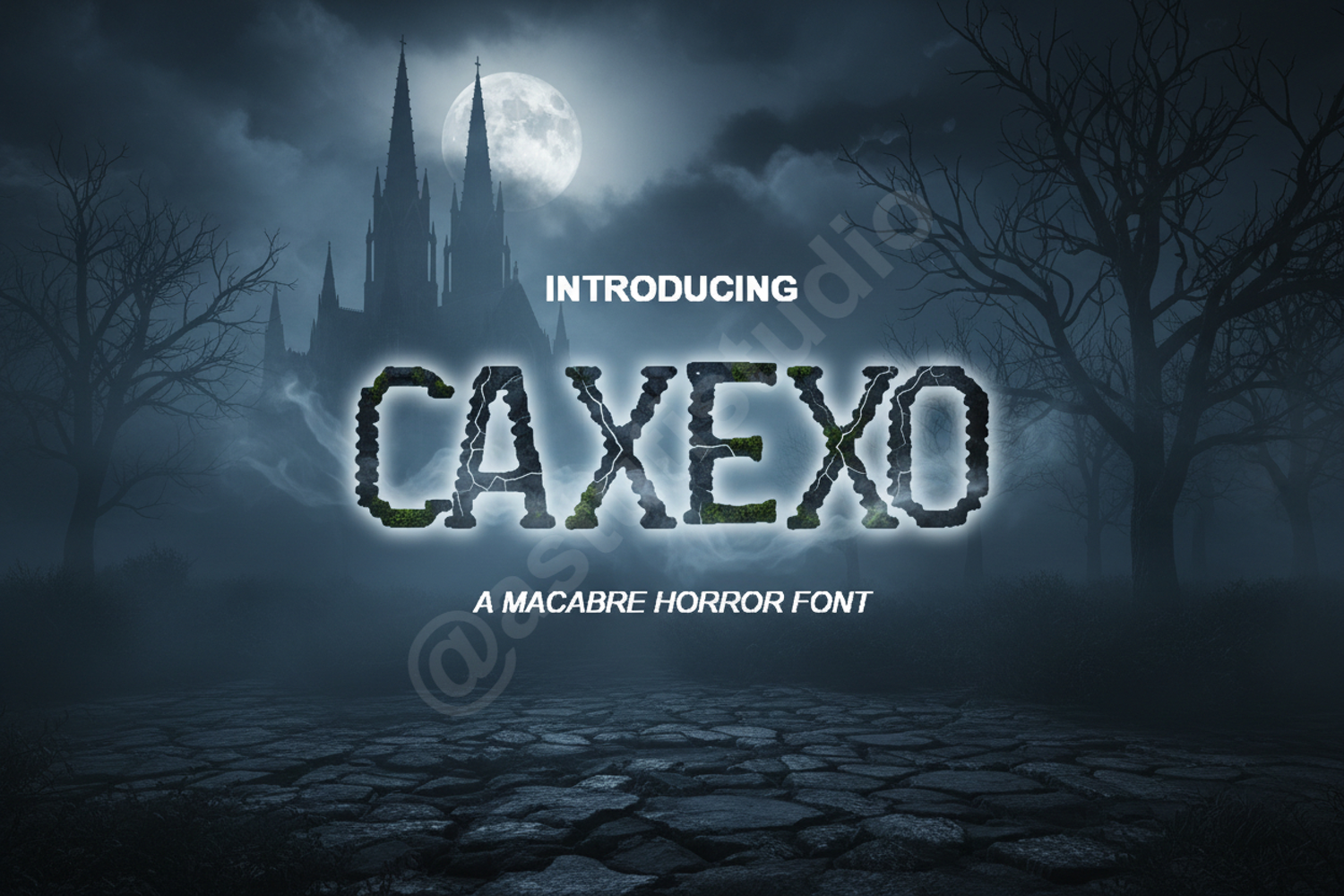
Caxexo - Modern Geometric Sans Serif Font
Caxexo
Caxexo is a premium geometric sans serif font designed for creators who demand clarity and sophistication. With its clean lines and balanced proportions, Caxexo offers a timeless aesthetic that bridges the gap between modern minimalism and high-end elegance. Whether you are crafting a bold headline or a subtle brand mark, Caxexo provides the versatility needed for professional results.
- Multilingual support for global accessibility
- Standard ligatures and alternate characters
- Branding and Visual Identity: Perfect for logos, corporate stationery, and business cards.
- Editorial Design: Ideal for magazine headers, layouts, and sophisticated body text.
- Digital Marketing: Optimized for high readability on websites and social media graphics.
- Packaging: Adds a clean, professional touch to product labels and luxury boxes.
- Wedding Stationery: A great choice for modern, minimalist invitation suites and event signage.